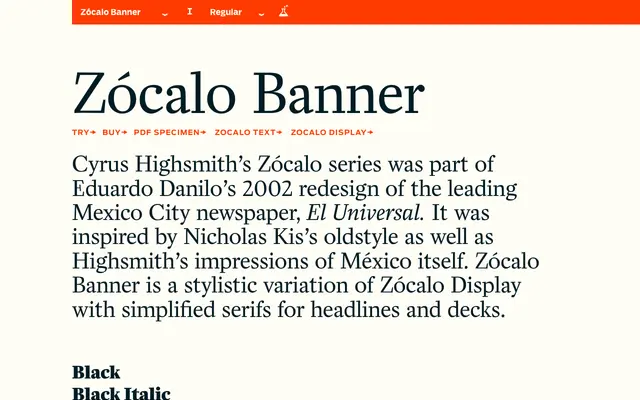
Zócalo Banner
A headline variant of the Zócalo series, designed by Cyrus Highsmith for the 2002 redesign of Mexico City newspaper El Universal, with simplified serifs suited to large-size setting.
Zócalo Banner is one of three optical-size members of Highsmith's Zócalo series, originally commissioned for Eduardo Danilo's redesign of El Universal. Drawing on Nicholas Kis's oldstyle as a historical anchor, it adapts those forms through Highsmith's impressions of México itself. Simplified serifs distinguish it from Zócalo Display, making it the workhorse for headlines and decks where optical refinement matters.
Rooted in Nicholas Kis's oldstyle tradition, Zócalo Banner is a display-oriented serif with simplified serifs designed for headlines and decks, placing it firmly in the oldstyle serif subcategory at larger sizes.